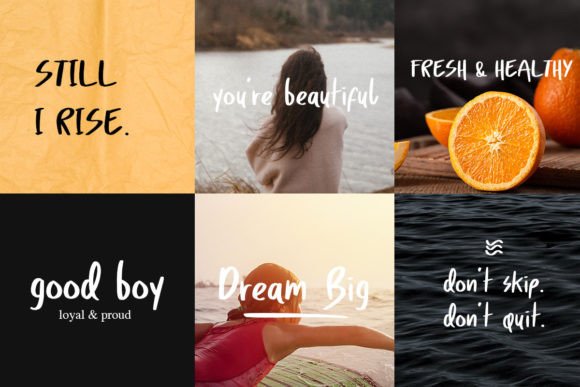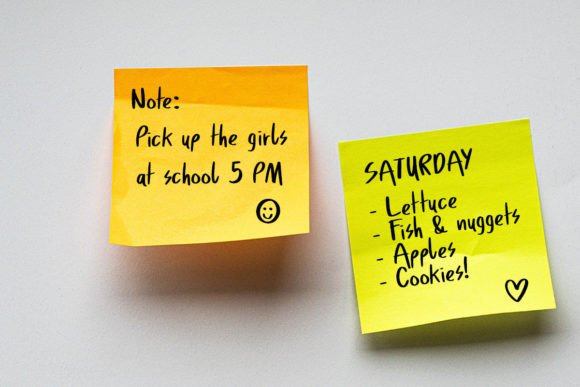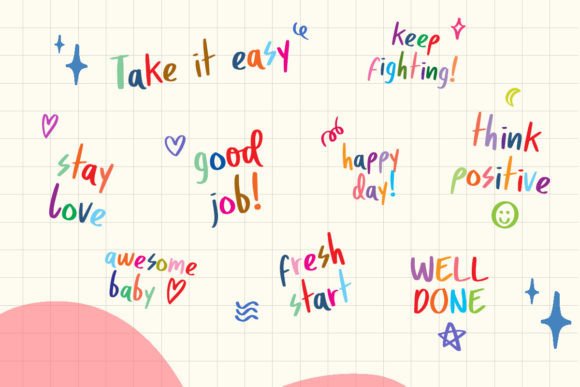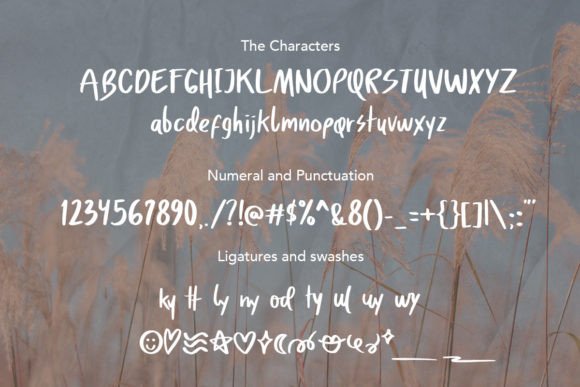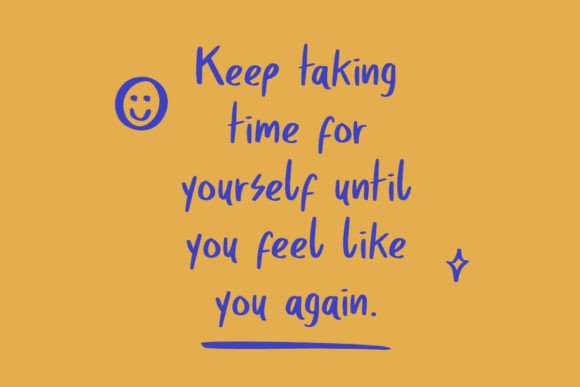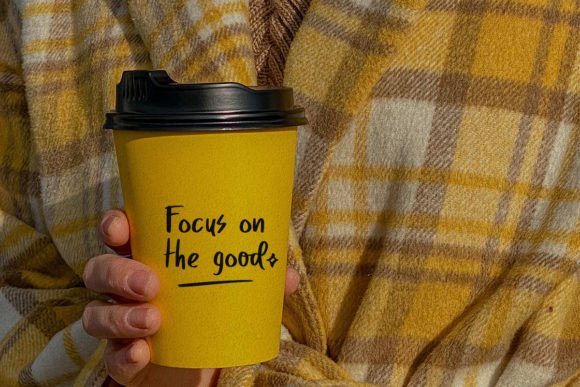
Discover the Joy of Aquabay Font
| 📌 Product Name | Aquabay Font |
| 👤 Author | Scratch Design |
Introducing Aquabay Font, a delightful, natural handwritten font that’s bursting with personality. This charming font is perfect for a wide range of design projects, from eye-catching posters to beautiful branding, and from name cards to packaging designs. Its unique spirit will add a touch of whimsy to your artwork, making it truly unforgettable.
Aquabay Font Key Features
- Character Set: This font includes a comprehensive set of characters, including Latin, Cyrillic, and Greek alphabets, as well as punctuation marks and symbols.
- Unique Characteristics: The Aquabay Font features a unique blend of modern and classic design elements, with flowing curves and geometric shapes that create a distinctive visual identity.
- Font Weight and Style: This font includes multiple weights and styles, including light, regular, bold, and italic, allowing designers to achieve a range of visual effects and moods.
- Multi-Lingual Support: The Aquabay Font supports multiple languages, including English, Spanish, French, German, Italian, Portuguese, Dutch, Russian, Chinese, Japanese, and Korean, making it a versatile choice for global design projects.
Aquabay Font Review
Aquabay Font is a beautiful and modern script font that can add a touch of elegance to any design project. ✨ The font features a unique blend of smooth, flowing lines and subtle flourishes that give it a distinctive character. The font is well-suited for use in branding, packaging, and other applications where a high-end, sophisticated look is desired.
Some of the strengths of Aquabay Font include:
- ✨ Highly customizable, with a range of font weights and styles to choose from.
- ✨ Supports a wide range of languages, making it a versatile option for global brands.
- ✨ Can be easily paired with other fonts to create a unique and cohesive design.
- ⚠️ May not be suitable for use in small text sizes, as the font can become difficult to read.
- ⚠️ Can be challenging to use in digital applications, such as mobile apps or websites, due to its complex design.
Overall, Aquabay Font is a high-quality font that can be a valuable addition to any designer’s toolkit. While it may have some limitations, its unique character and high level of customization make it a great option for designers who want to create a truly distinctive and memorable brand identity.
Aquabay Font is ideal for:
- Water-inspired designs, such as ocean-themed graphics and logos.
- Modern and sleek branding materials, including business cards and brochures.
- Web design and development, particularly for aquatic or eco-friendly websites.
For optimal results, use Aquabay Font in combination with complementary colors and textures to create a cohesive and visually appealing design.